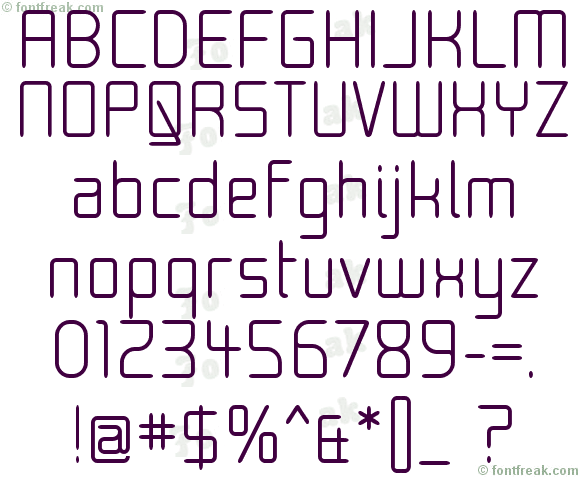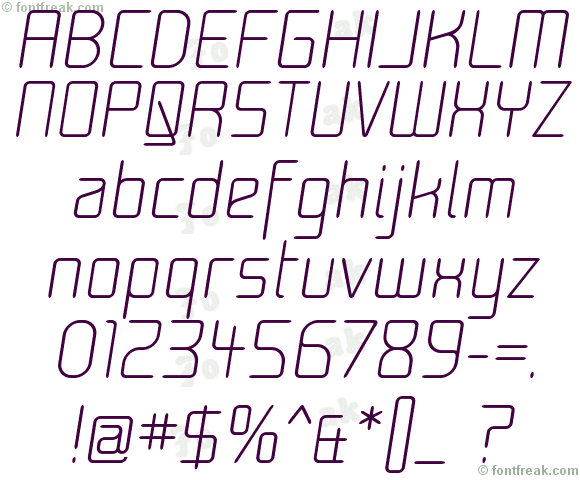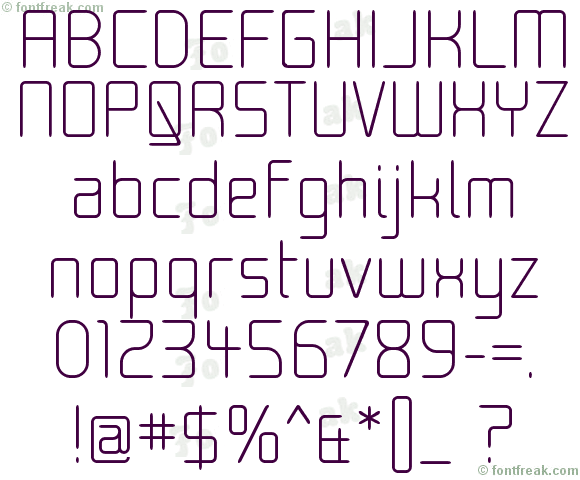
Moondog Fifteen, designed by Graham Meade of Gemfonts, is a unique display font that captures attention with its playful and modern aesthetic. This font falls into the category of decorative typefaces, characterized by its quirky letterforms and whimsical appeal. The stroke weight is consistent throughout, creating a sense of harmony, while the slight contrast adds visual interest. The spacing between characters is well-balanced, ensuring readability while maintaining a distinctive style.
This font is ideal for a variety of creative applications. It works wonderfully for wedding invitations, where its charming flair can help set a joyful tone. Additionally, Moondog Fifteen is perfect for movie posters, as its bold and eye-catching design can effectively draw in audiences. Restaurant menus can also benefit from this font, as it adds a fun and inviting element that can make dishes seem more appealing. For branding purposes, small business owners looking to convey a unique personality can embrace this font for logos and marketing materials.
The target audience for Moondog Fifteen includes graphic designers, content creators, and small business owners who are seeking to enhance their projects with a distinctive typeface. Its freeware license allows for broad accessibility, making it an excellent choice for those on a budget.
What sets the Moondog Fifteen font apart is its ability to blend lightheartedness with functionality. Its distinctive style allows it to stand out in a crowded design landscape, making it a versatile choice for both print and digital media. For those interested in adding a unique touch to their designs, the Moondog Fifteen font free download is an opportunity not to be missed.